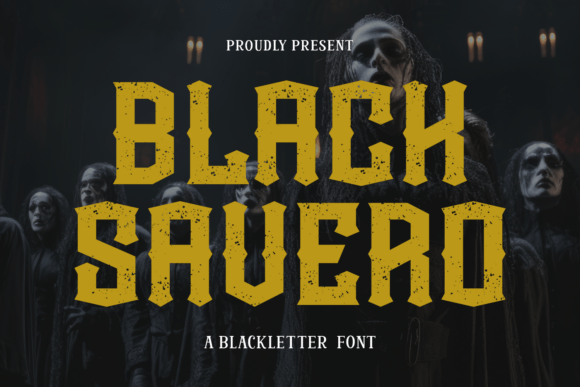
Unleash the Power of Black Savero Font: A Bold, Gothic-Inspired Blackletter Masterpiece
In the realm of typography, few fonts evoke the same level of drama and elegance as the Black Savero font. This bold, Gothic-inspired blackletter font is a masterpiece of intricate detailing and sharp edges, making it the perfect choice for designers and crafters looking to add a touch of vintage flair to their projects. Whether you’re creating a logo, poster, or tattoo design, Black Savero is sure to make a statement.
The Characteristics of Black Savero Font
Black Savero is a true showstopper, boasting a unique blend of Gothic and blackletter styles. Its bold, dramatic flair is instantly striking, with intricate detailing and sharp edges that give it a sense of strength and elegance. The font’s ornate style is reminiscent of traditional Gothic architecture, with sweeping curves and pointed arches that evoke a sense of grandeur and luxury.
One of the key features of Black Savero is its versatility. This font can be used in a wide range of applications, from vintage-inspired designs to modern, edgy projects. Its bold, eye-catching style makes it perfect for headlines, logos, and posters, while its elegant, refined lines also lend themselves well to more intricate designs, such as tattoos and illustrations.
Perfect for Vintage Designs, Tattoos, and Logos
Black Savero’s unique blend of Gothic and blackletter styles makes it an ideal choice for vintage-inspired designs. Its bold, dramatic flair is instantly reminiscent of classic Gothic typography, while its intricate detailing and sharp edges give it a sense of modernity and edge. Whether you’re creating a vintage-style poster, logo, or advertisement, Black Savero is sure to add a touch of authenticity and elegance.
In the world of tattoo design, Black Savero is also a popular choice. Its bold, striking lines and intricate detailing make it perfect for creating eye-catching, visually stunning designs that are sure to turn heads. Whether you’re a tattoo artist or simply a design enthusiast, Black Savero is a great choice for anyone looking to create bold, dramatic tattoos that make a statement.
Branding, Posters, and Headlines: The Possibilities are Endless
Black Savero’s versatility extends far beyond vintage designs, tattoos, and logos. Its bold, eye-catching style makes it perfect for a wide range of applications, including branding, posters, and headlines. Whether you’re creating a bold, dramatic logo or a eye-catching poster, Black Savero is sure to grab attention and make a lasting impression.
In the world of branding, Black Savero is an excellent choice for companies looking to create a bold, memorable identity. Its unique blend of Gothic and blackletter styles gives it a sense of strength and elegance, making it perfect for companies that want to convey a sense of luxury, sophistication, and drama.
Why Choose Black Savero Font?
So why choose Black Savero font for your next design project? Here are just a few reasons why this bold, Gothic-inspired blackletter font is a great choice:
- Unique and eye-catching style: Black Savero’s bold, dramatic flair is instantly striking, making it perfect for grabbing attention and making a lasting impression.
- Versatility: This font can be used in a wide range of applications, from vintage-inspired designs to modern, edgy projects.
- Elegance and sophistication: Black Savero’s intricate detailing and sharp edges give it a sense of elegance and sophistication, making it perfect for luxury brands and high-end designs.
- Perfect for headlines and logos: Black Savero’s bold, eye-catching style makes it perfect for headlines, logos, and posters.
In conclusion, Black Savero font is a bold, Gothic-inspired blackletter masterpiece that is sure to make a statement in any design project. Its unique blend of intricate detailing and sharp edges gives it a sense of strength and elegance, making it perfect for vintage designs, tattoos, logos, branding, posters, and headlines. Whether you’re a designer, craftsperson, or simply a typography enthusiast, Black Savero is a great choice for anyone looking to add a touch of drama and elegance to their projects.